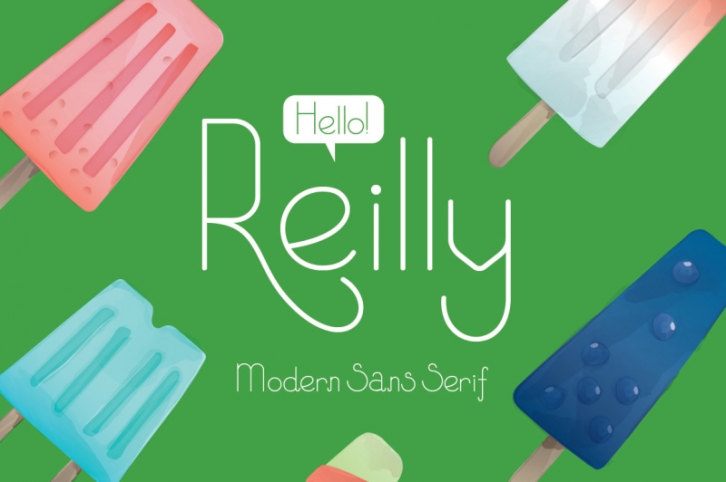
Inspired from modern sans serif typefaces combined with decorative elements. Reily is best used for quotes, headings, logo, logo type and more. This typeface features uppercase and lowercase characters, numerals, punctuations and support multi language support.